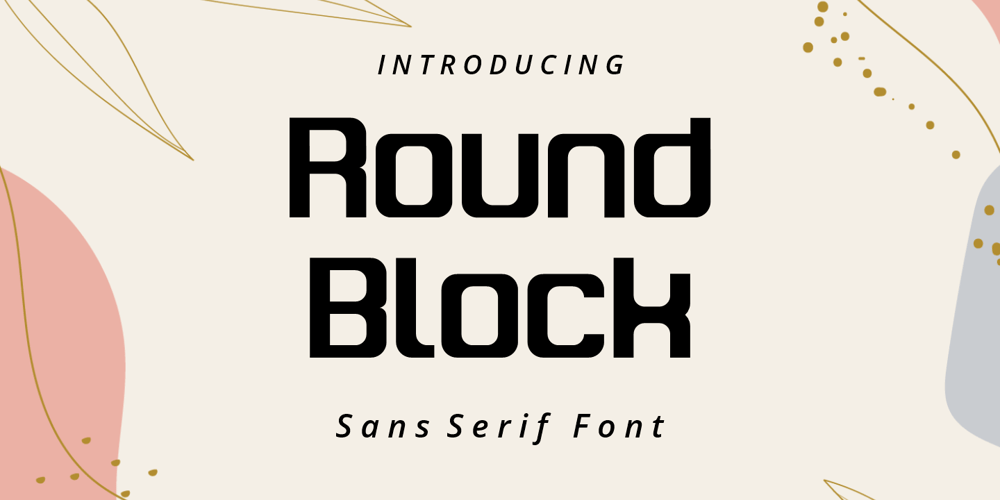
Round Block
Round Block font
Round Block Font Family was designed by Anton Cahyono and published by Motokiwo. Round Block contains 1 styles and family package options. Round Block is a techno Sans Serif font. It’s suitable for sports logo, poster, headline, products design, print design, etc. Round Block also support standard multilingual characters.